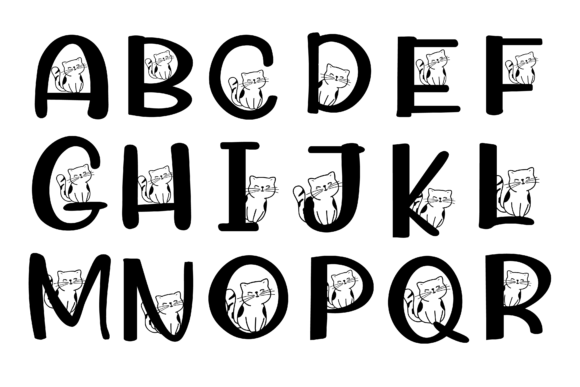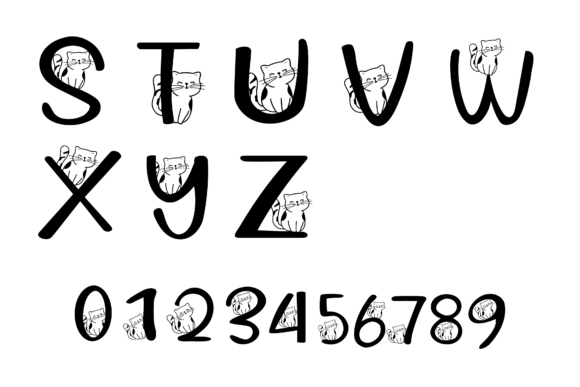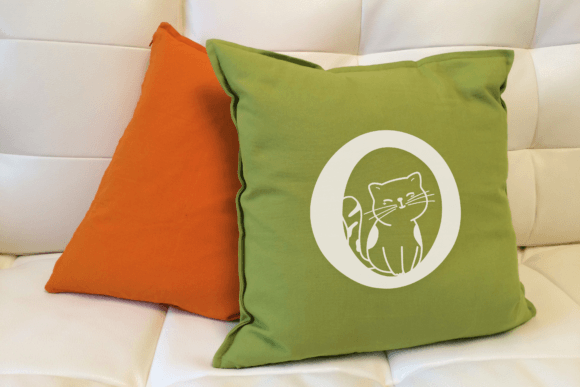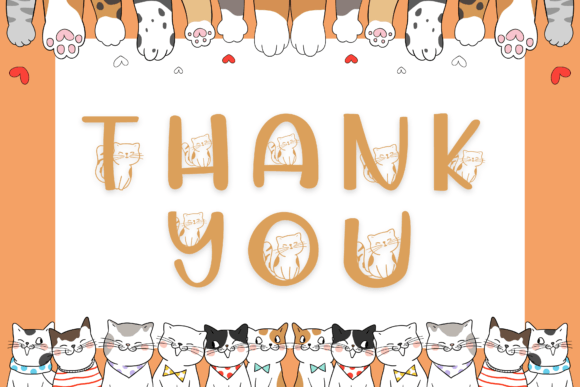
Meet Your New Feline Friend in Letters
Have you ever stared at a blank page, waiting for inspiration to strike? For designers, this moment is all too familiar. But what if your blank page could be filled with the adorable presence of a cat? Enter Cat Font, a playful typography style where each letter is accompanied by a charming feline friend. This whimsical touch adds a touch of fun and personality to any text, making it perfect for designers looking to add a little extra charm to their projects.
For designers, Cat Font is a valuable tool for adding visual interest and whimsy to their work. Whether you’re creating a children’s book, a social media campaign, or a simple blog post, this font can help bring a smile to your readers’ faces. With its unique and playful design, Cat Font is sure to become a favorite among designers and cat lovers alike.
Cat Font Key Features
- Unique Characteristics: The font features a unique, hand-drawn design with a playful, whimsical feel, making it perfect for creative projects and branding.
Designer Review: Cat Font
Overall, I was excited to dive into Cat Font and see what it had to offer. As a designer, I appreciate unique and creative typography, and this font delivers ✨. Here are some of its standout features:
- Quirky and playful feel that’s perfect for cat lovers and those looking for a fun, lighthearted vibe ✨
- Well-crafted letterforms that maintain a cohesive look and feel across different weights and styles ✨
- Good legibility, making it suitable for body text as well as headlines and titles ✨
However, there are some limitations to consider ⚠️:
- Limited language support, which may be a concern for designers working on international projects ⚠️
- Some characters may not be as polished or refined as others, which can affect overall quality ⚠️
- May not be suitable for formal or professional designs, due to its playful and whimsical nature ⚠️
Overall, I’d give Cat Font 4 out of 5 stars. While it’s not perfect, it’s a fun and creative addition to any designer’s toolkit. With a bit more development and refinement, it could become a true standout in the world of typography.
Alternatives to Cat Font
Playfair Display is an elegant, luxurious script font perfect for high-end branding and advertising. It features intricate flourishes and ornate details, making it ideal for creating a sense of sophistication and refinement. When to use: Luxury brands, high-end fashion, and elegant invitations.
Comparison to Cat Font: While Cat Font has a playful, whimsical feel, Playfair Display is more refined and sophisticated. Playfair Display is ideal for projects that require a touch of elegance, whereas Cat Font is better suited for more casual, lighthearted designs.